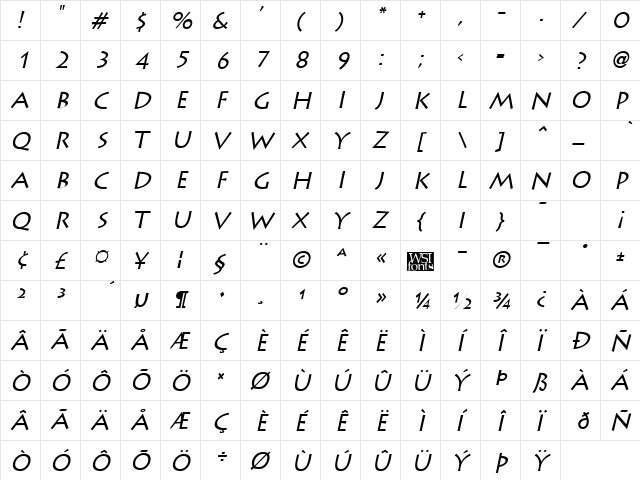
Liddie Italic
Design Context for Liddie Typeface
Liddie is a composed and adaptable typeface that performs quietly and consistently across a wide range of design contexts. The dynamic lean of this cut emphasises speed and emphasis in any layout.
Pro Tip: Use Liddie for emphasis, pull quotes, and subheadings where its slanted energy can add rhythm to the layout.